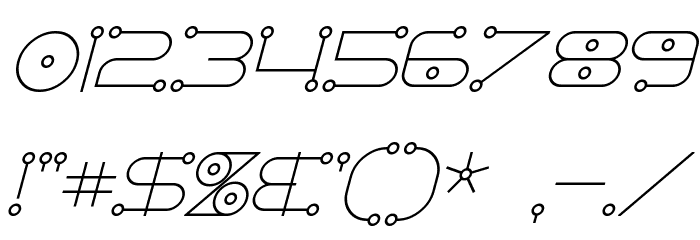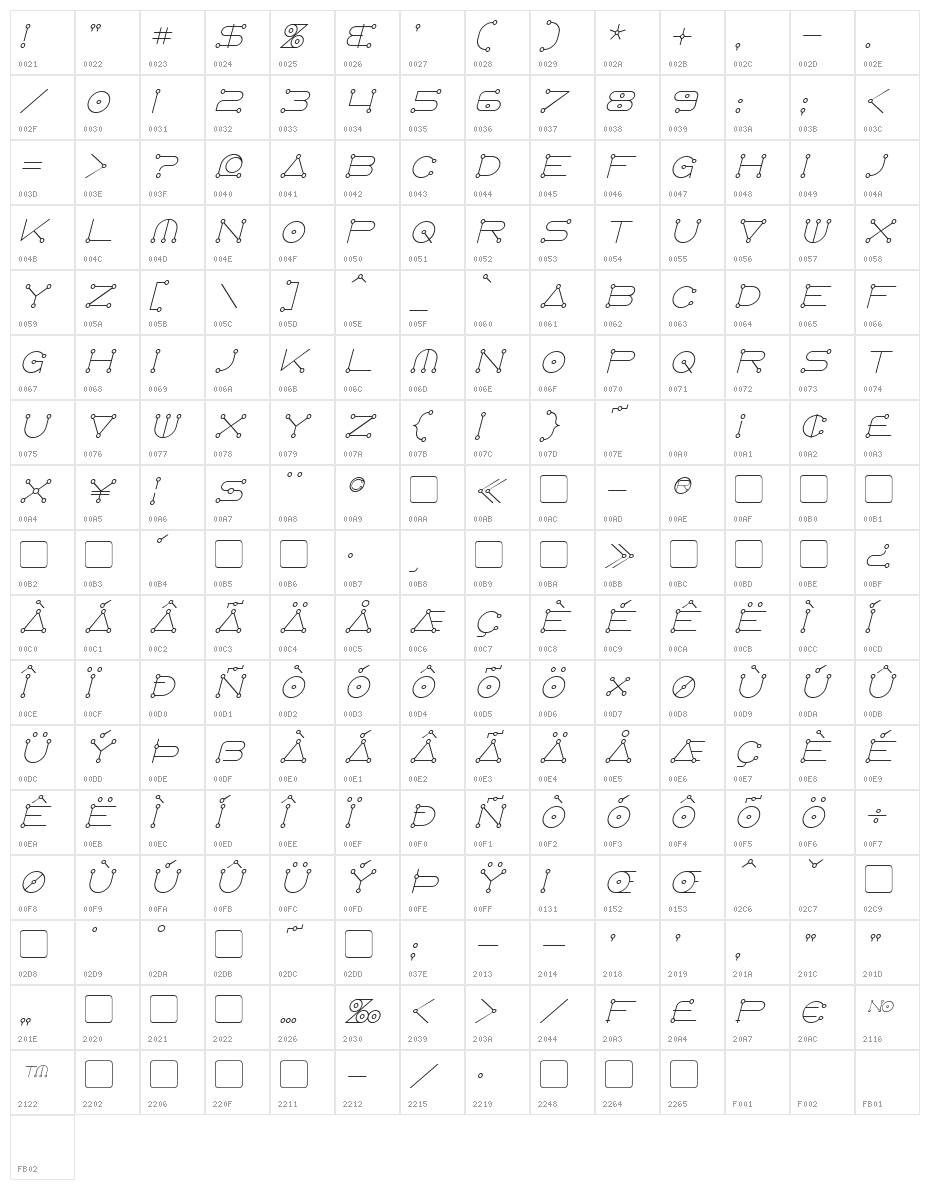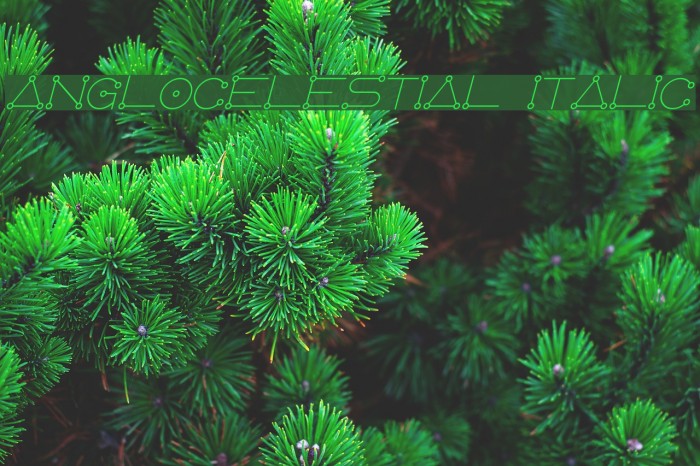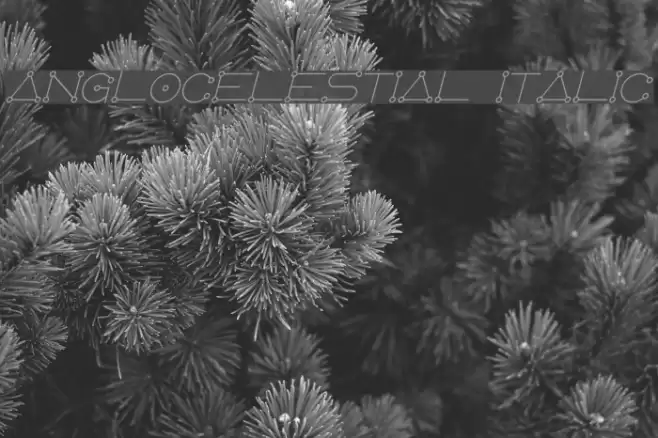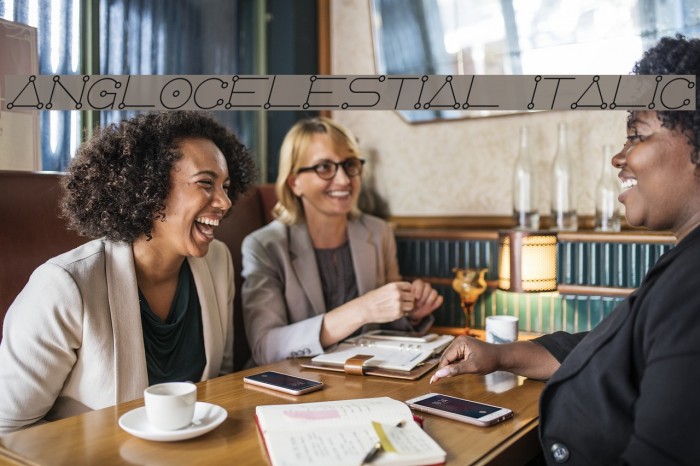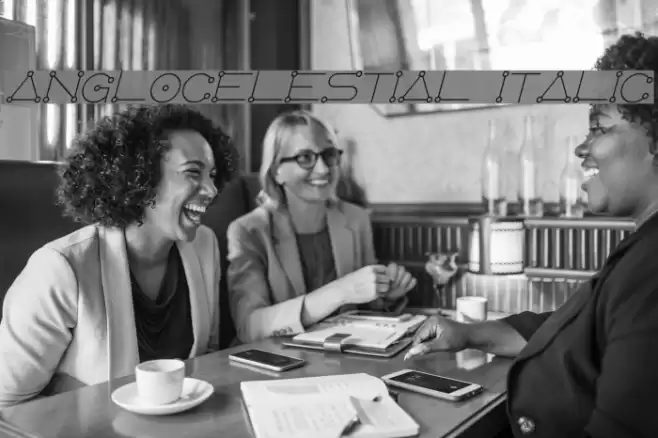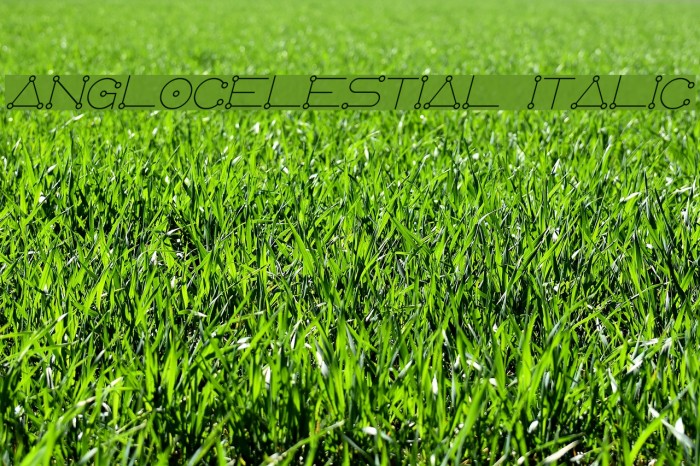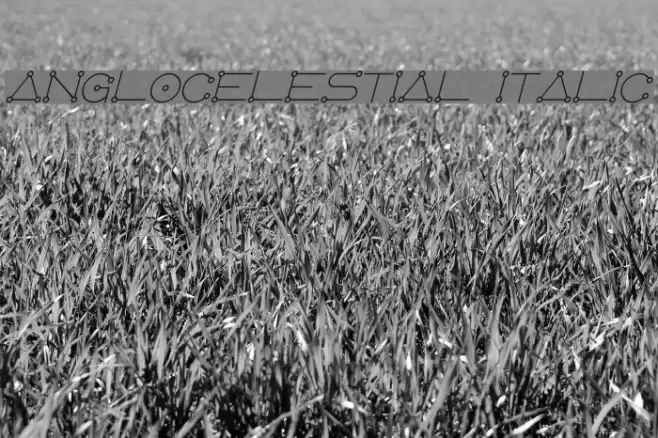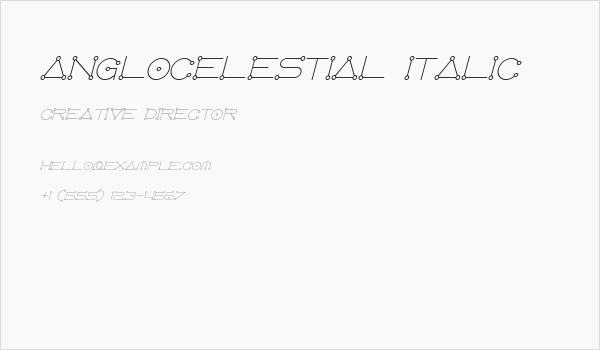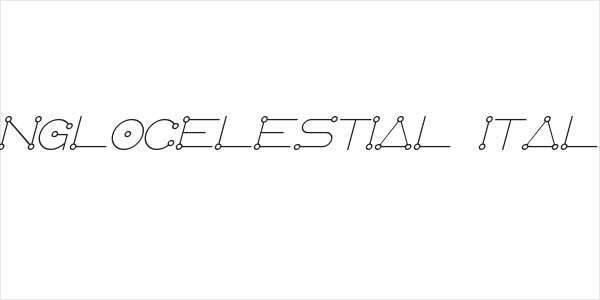
AngloCelestial Italic Font
AngloCelestial Italic Description
This font features a futuristic and geometric design, characterized by its unique use of circular nodes connected by straight lines. Each character is constructed with precision, giving it a technical and modern appearance. The uppercase and lowercase letters maintain a consistent style, with the circular nodes adding a decorative touch. The numerals and special characters follow the same design principle, ensuring uniformity across the font. This style is reminiscent of circuit diagrams or constellations, making it ideal for projects that require a high-tech or celestial theme.
| Proposed Projects | Perfect for sci-fi book covers, tech company logos, futuristic posters, and digital interfaces. |